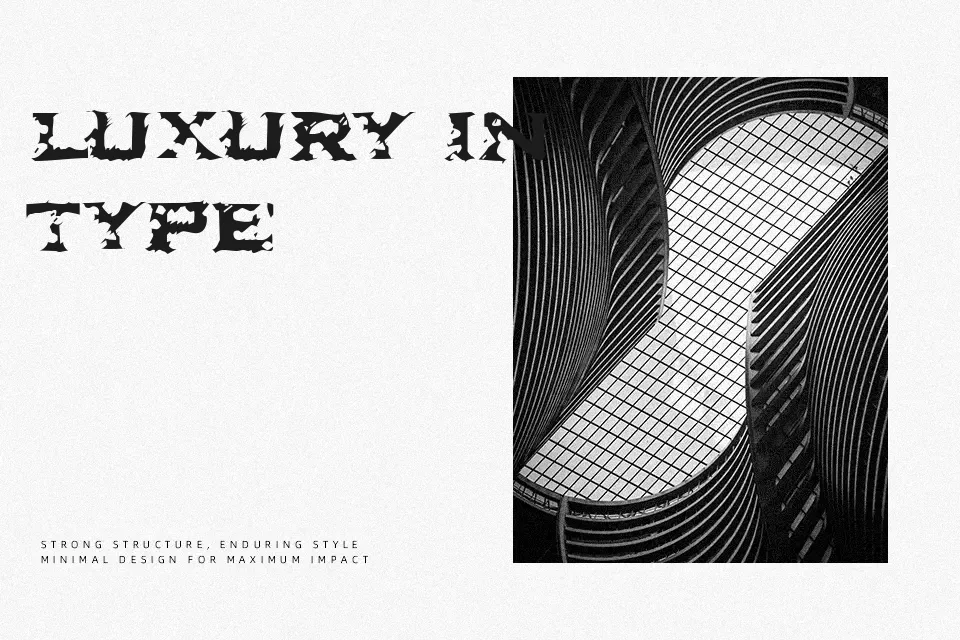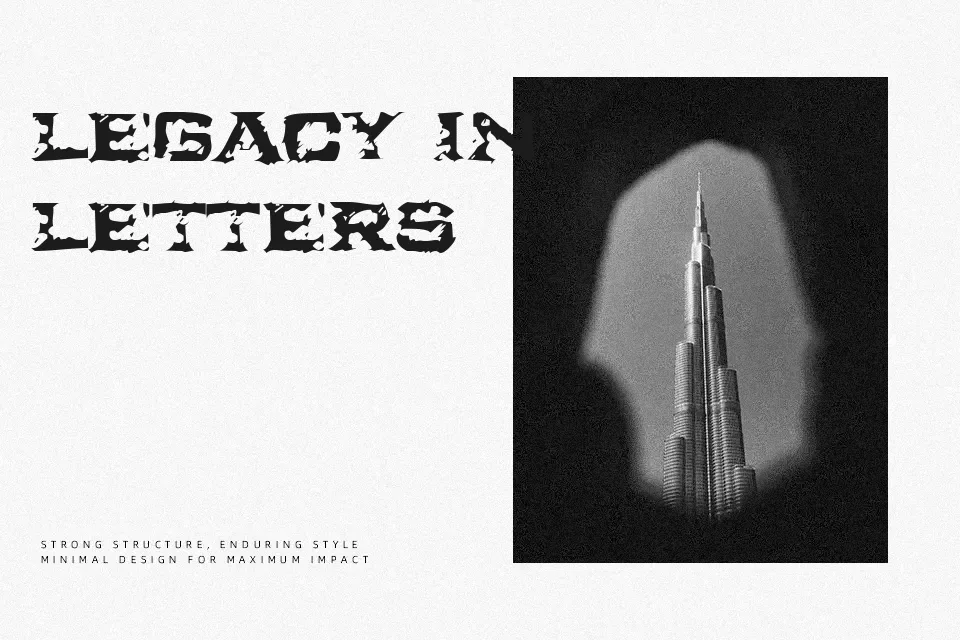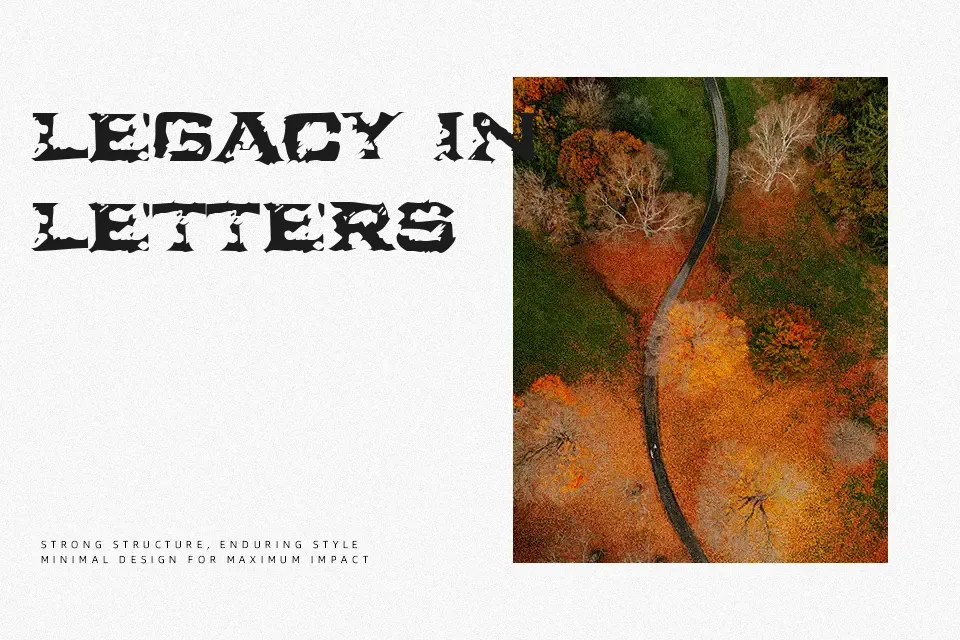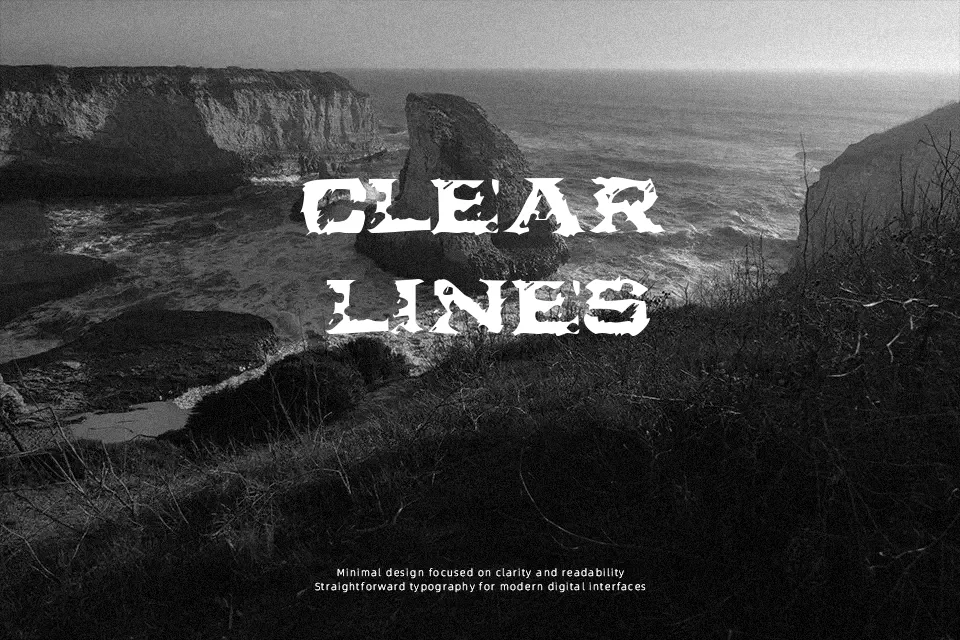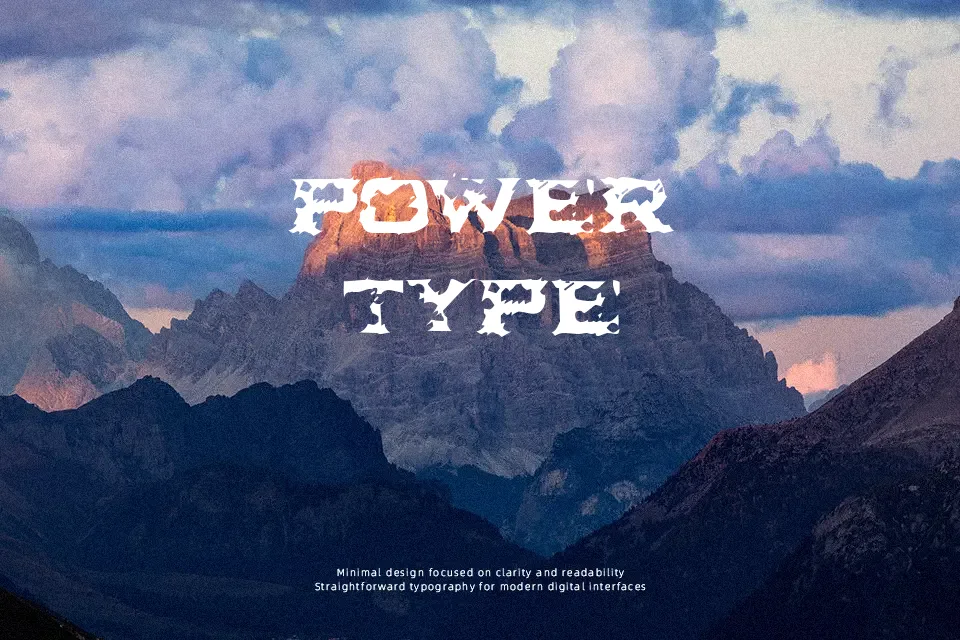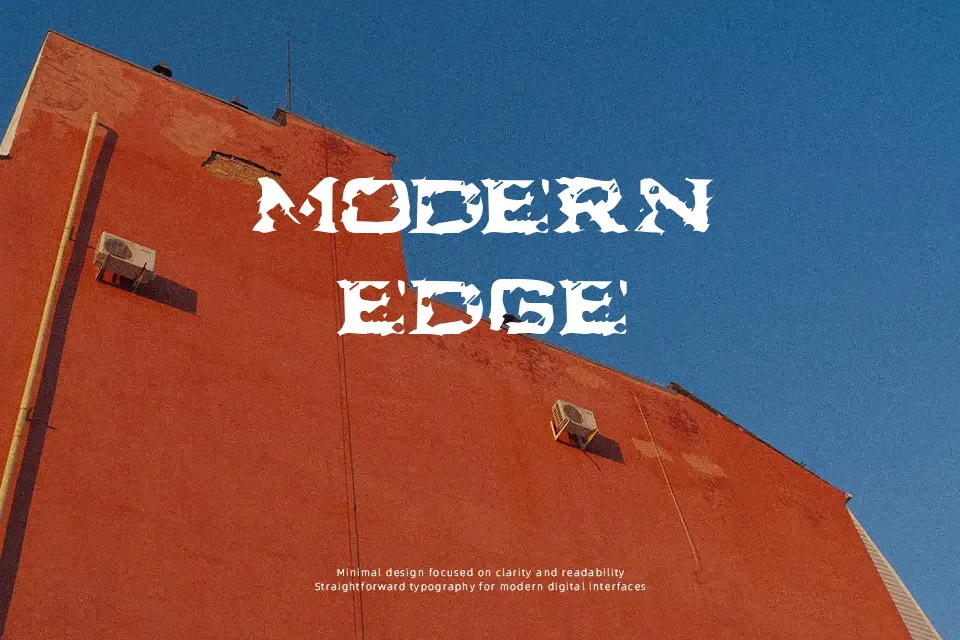
Turbulence Font
Turbulence Font exhibits a decomposed structural framework formed by heavy, abrasive strokes and cracked contour perimeters. Character proportions lean broad and muscular, while compact letter spacing builds a claustrophobic, aggressive cadence across text strings. At headline scales, the eroded letterforms convey raw kinetic energy that thrives on underground event banners, skateboard graphics, and horror video game titles. Close inspection demonstrates that fine perimeter distress reduces letterform readability when scaled toward subhead dimensions. Furthermore, the chaotic exterior contours make extended reading uncomfortable across multiple lines of text. The typeface proves most compelling when deployed sparingly as a dominant visual hook where severe surface weathering reinforces an unruly artistic direction.
Best For: underground concert posters, skateboard deck graphics, horror film title cards, industrial album packaging
Not Ideal For: continuous paragraph text, mobile application interfaces, corporate identity systems, small print captions
Perfect for film, gaming, and headline, with a bold and decorative style.